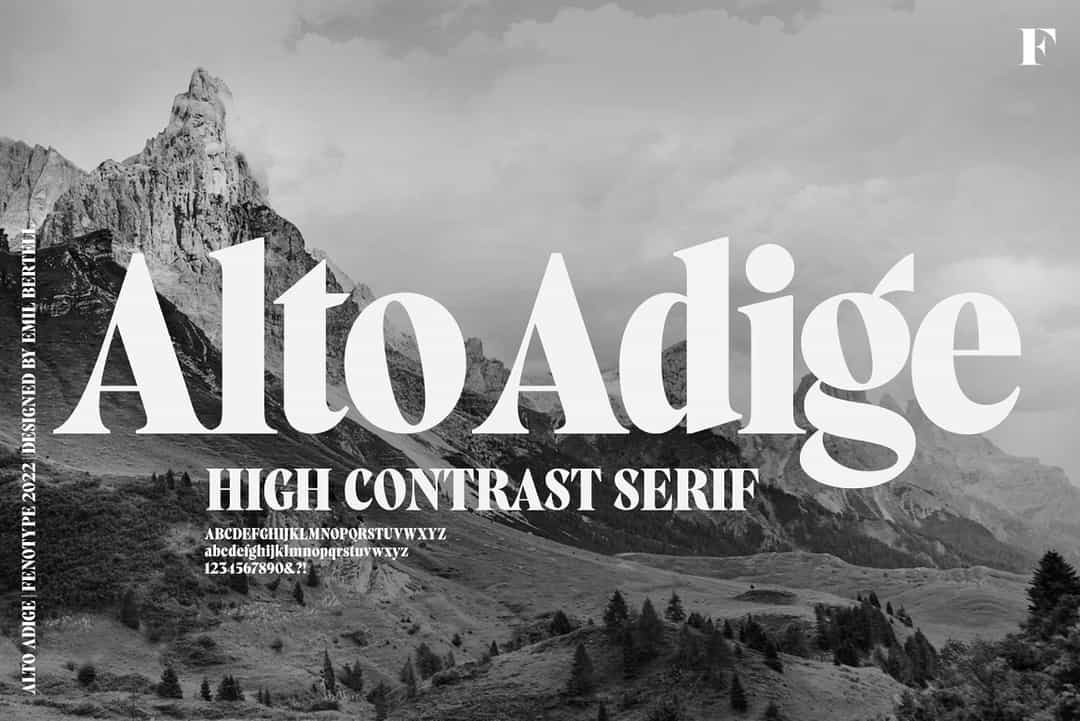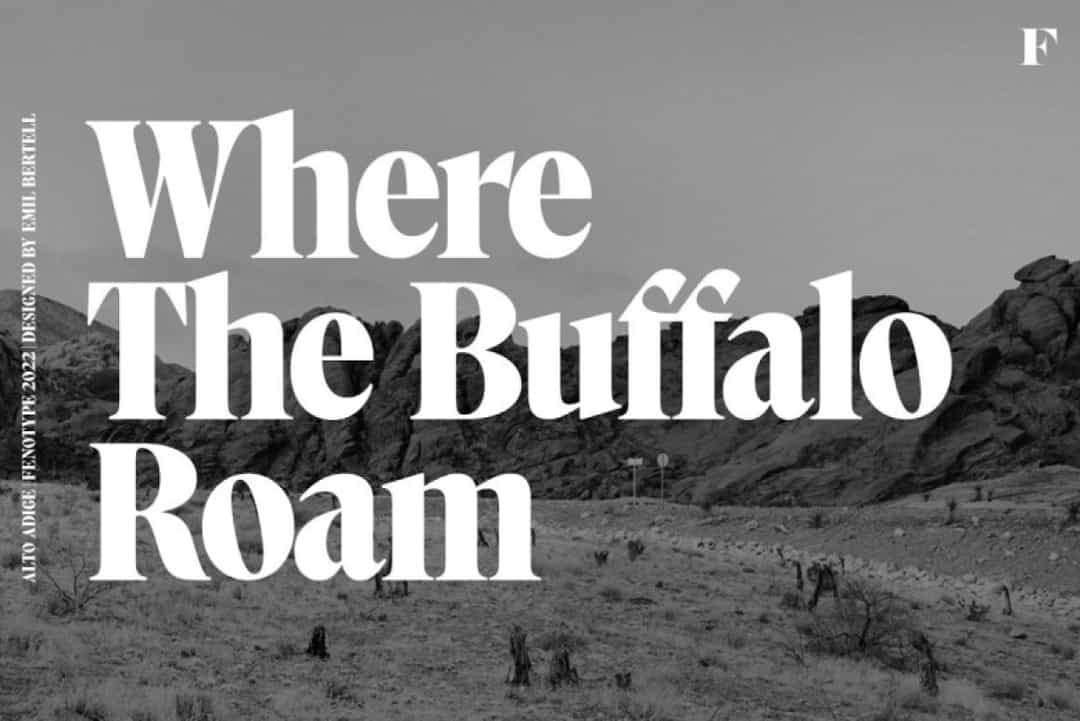
Alto Adige is a high-contrast display typeface named for Italy’s northernmost region and features narrow lines and bold contrast for optimal use as headlines packaging posters, magazines, posters or advertising as well as any other display needs. Due to its large x-height feature it makes Alto Adige ideal for text blocks with strong leadings.